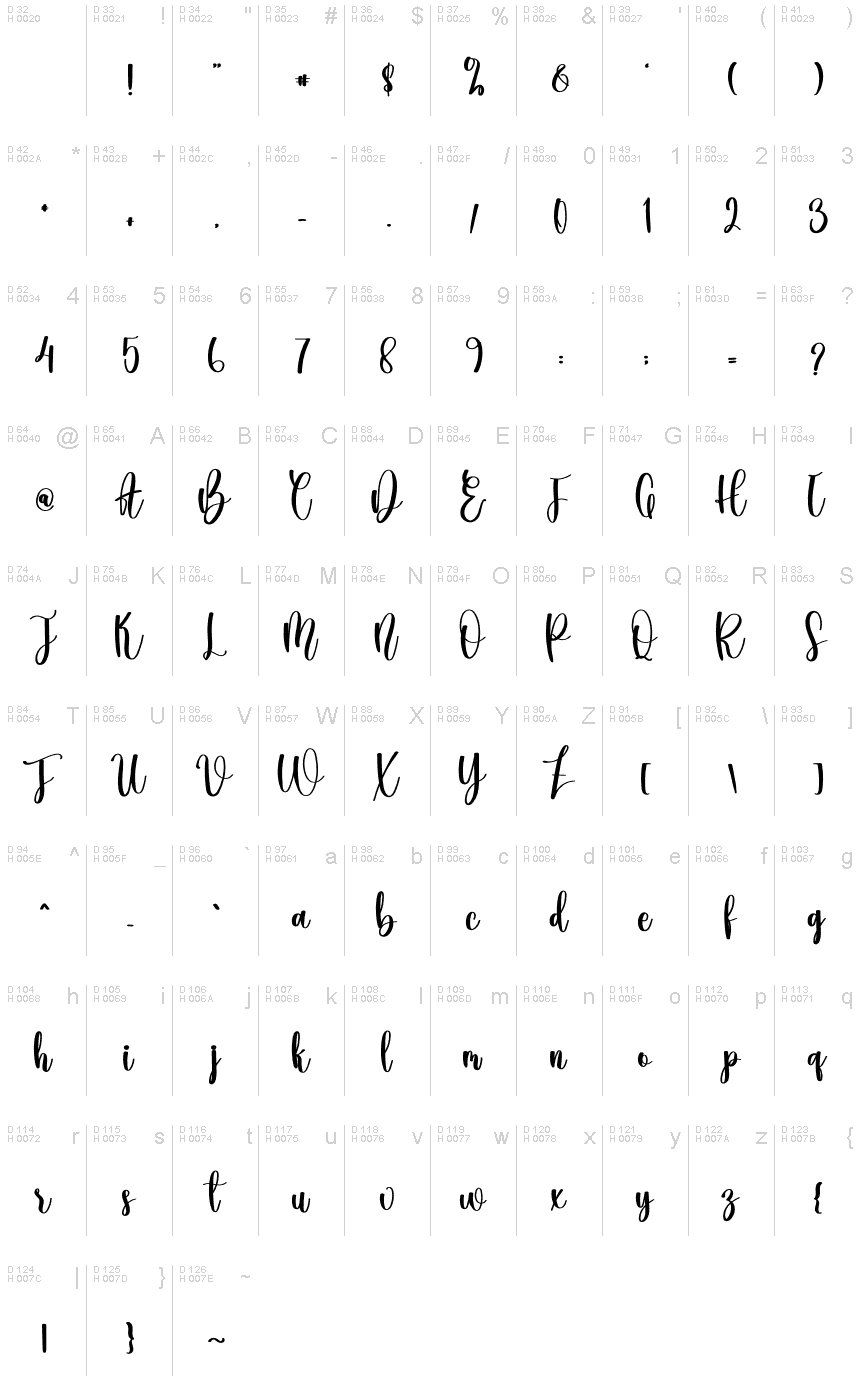
Biscuits
Biscuits, the calligraphic font designed by Haksen Studio, is perfect for projects that require a touch of elegance and sophistication. With its condensed width, it's an ideal choice for creating eye-catching headlines or titles that need to fit into tight spaces. The intricate strokes and curves of this font add a unique element to any design, making it suitable for wedding invitations, branding materials, and even product packaging. Whether you're looking to create a classic or modern look, Biscuits is versatile enough to bring your vision to life. Get creative and let Biscuits elevate your next project!